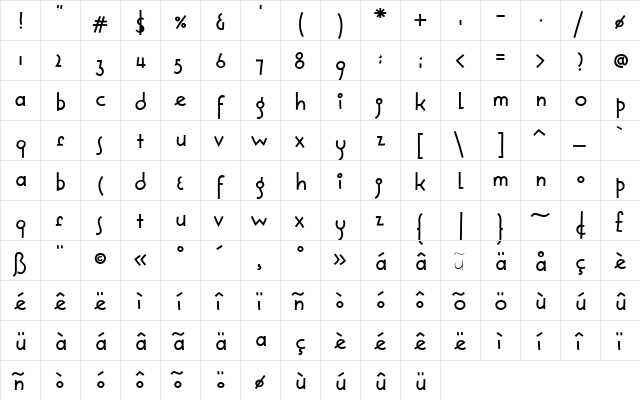
Solea Regular
Design Context for Solea Typeface
Solea offers clean, dependable letterforms without strong stylistic allegiance, making it a practical choice for designers who need flexibility.